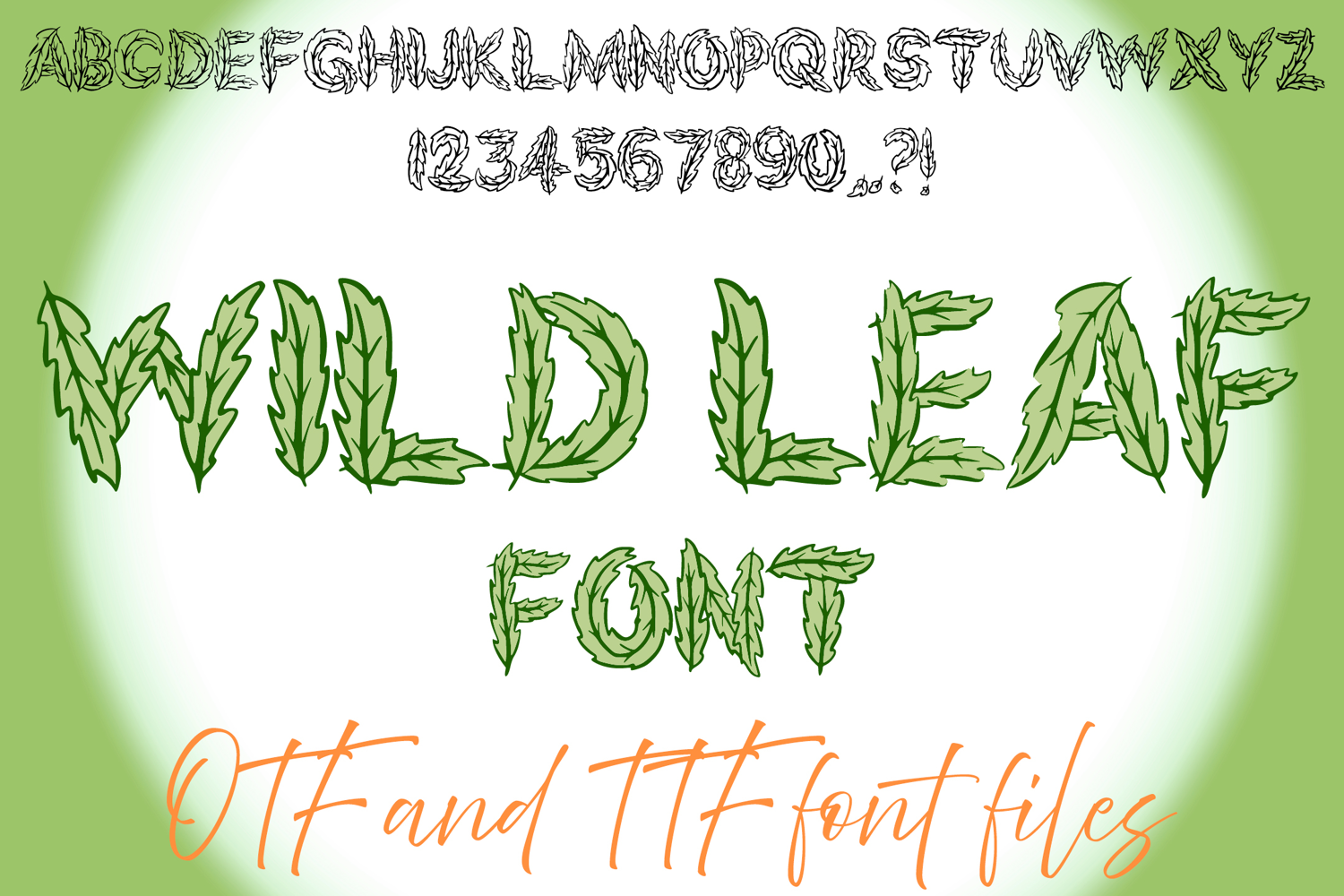
Wild Leaf Alphabet Lettering ABC Text Font Leaves Typeface OTF Illustration
A cartoon style font where you can create your own words and colour them to your vision!